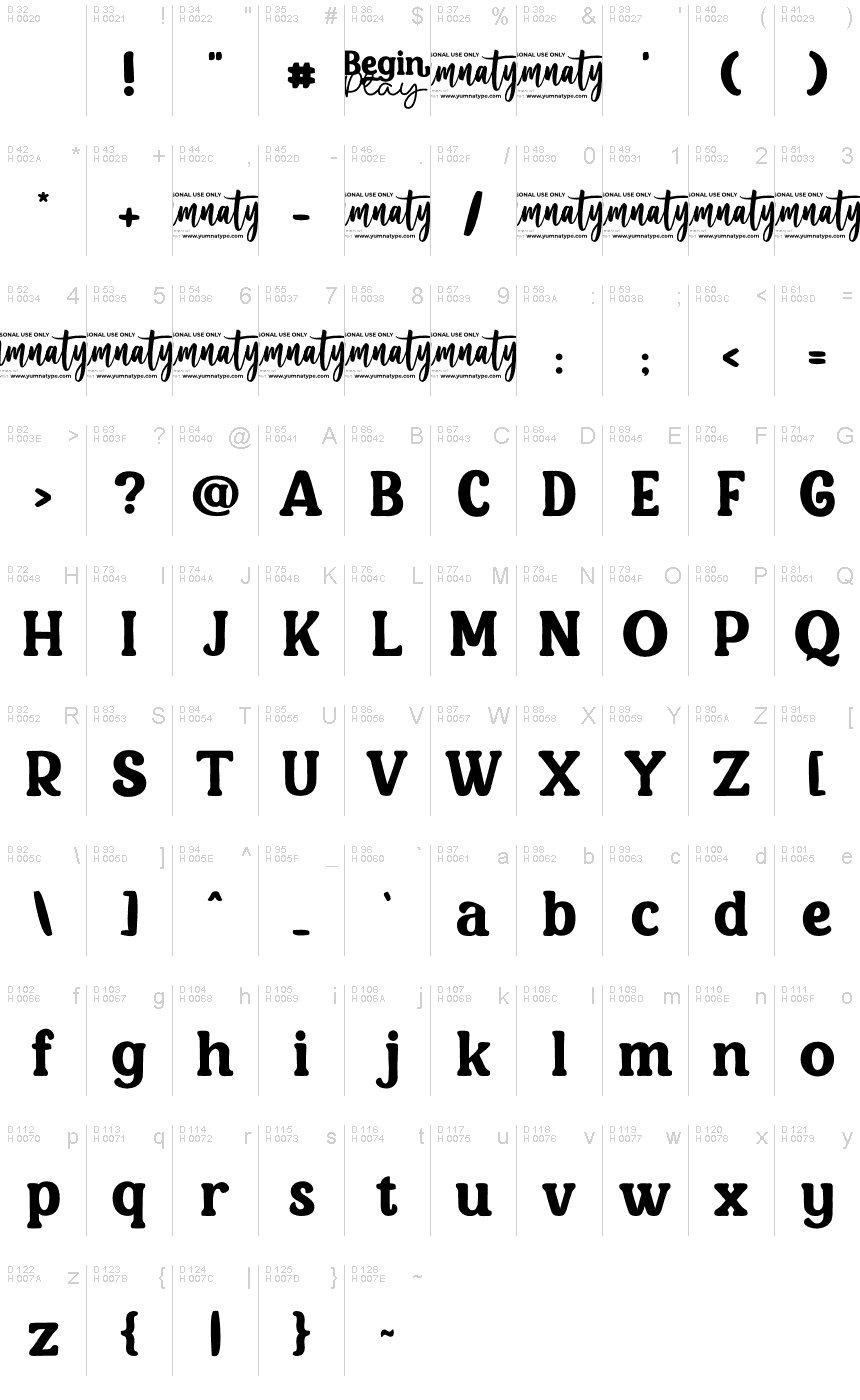
Begin Play Personal Use
Begin Play, a captivating serif font designed by Yumna Family, brings a touch of elegance and sophistication to any project. Its semi-bold weight adds a subtle yet impactful emphasis to your text.
With its timeless style and versatile nature, this font is perfect for editorial designs, including magazines and books. It also lends itself beautifully to branding materials such as logos and packaging, creating an air of refinement and class.
Elevate your projects with Begin Play's graceful serifs and make a lasting impression on your audience.